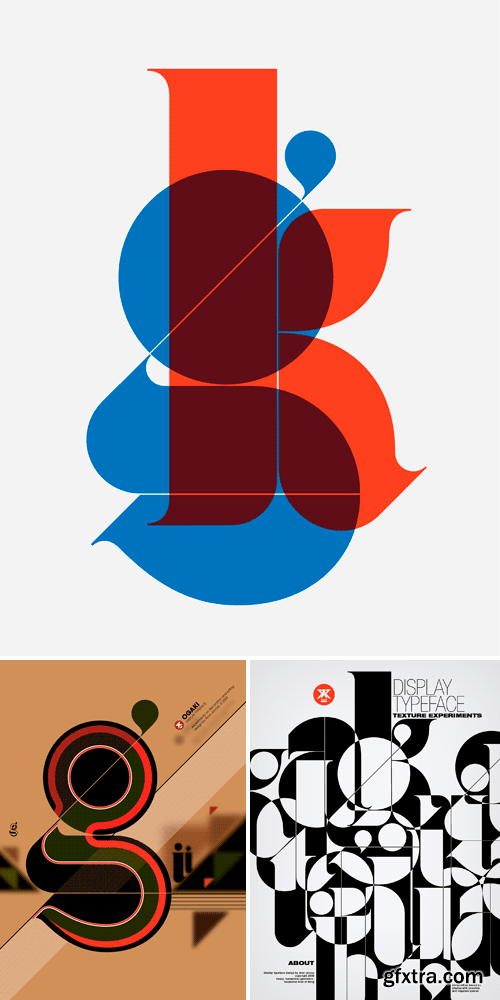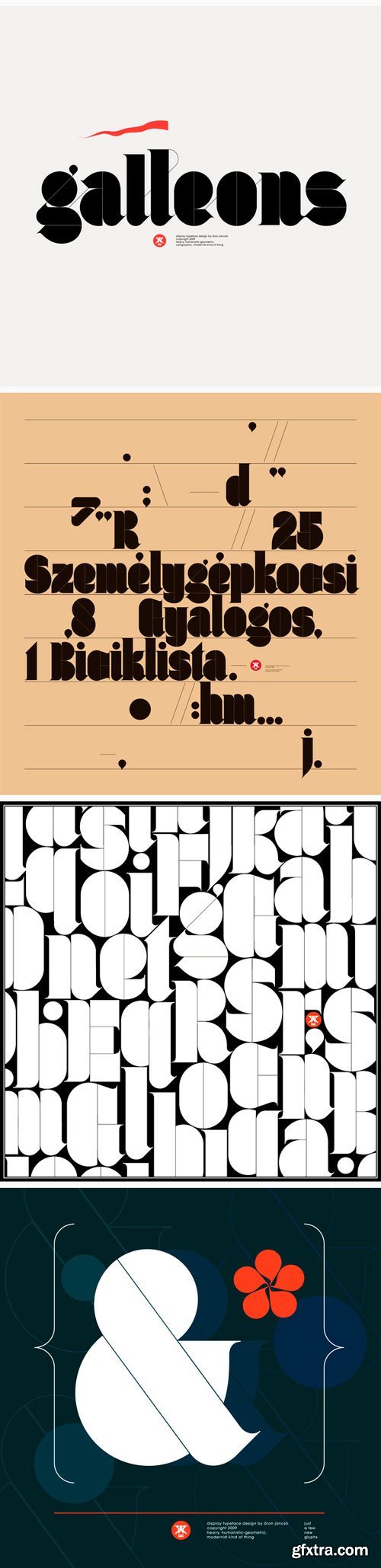
Ogaki Pro Font Family
- Ogaki is an ultra fat display typeface. Instilled with traits typical to calligraphy and graffiti, Jancso has created an experimental display typeface that is simply sublime and delicately extravagant. The font is available in four weights Poster, for use in large point sizes to create headlines for editorials, posters, logos, and CD covers, Text for setting smaller texts in smaller sizes and their respective Outline versions. Create punchy statements with Ogaki in a variety of languages with our different language packages Ogaki Standard, Ogaki Central European and Ogaki Pro which includes both the latter packages.